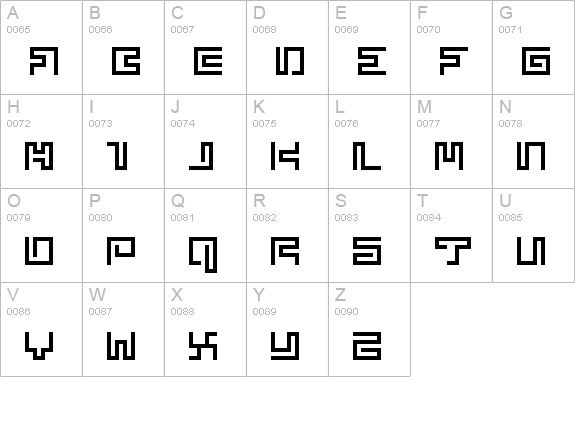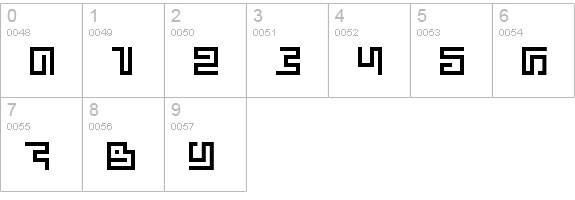
superphunky Font Details
Introducing Superphunky Font, a vibrant and energetic typeface that will add a funky touch to your designs. This font features bold, exaggerated strokes and a playful, modern aesthetic that is sure to make a statement. Whether you're working on a poster, logo, or branding project, Superphunky Font will bring a unique and dynamic flair to your work. Best of all, Superphunky Font is available for free download at FontsMarket.com! Now you can easily access this eye-catching font and incorporate it into your projects without breaking the bank. Don't miss out on the opportunity to add a touch of superphunky style to your designs with this free and versatile font. Download it today and let your creativity shine!